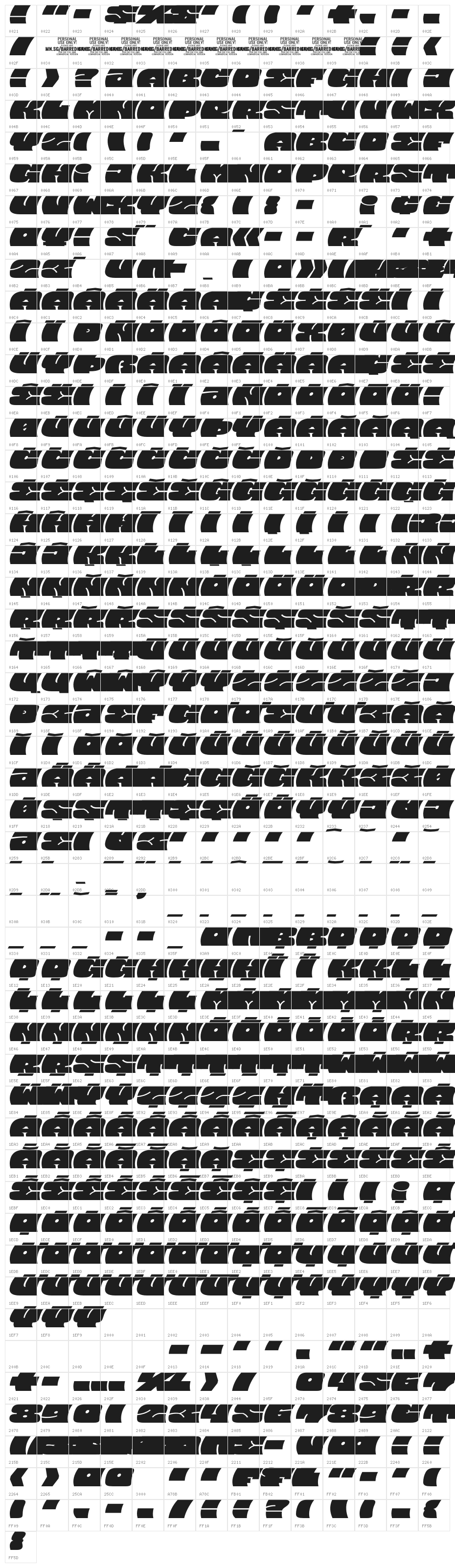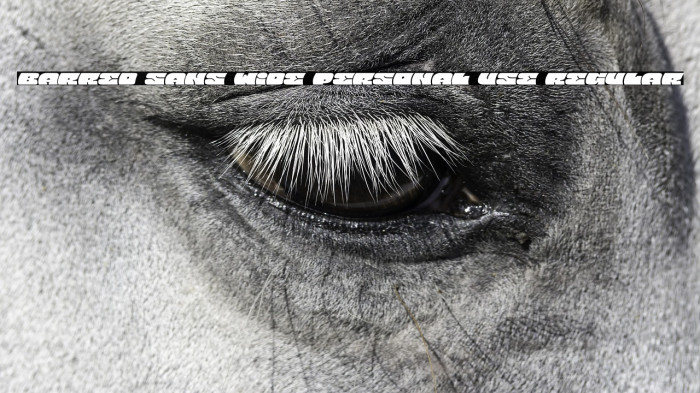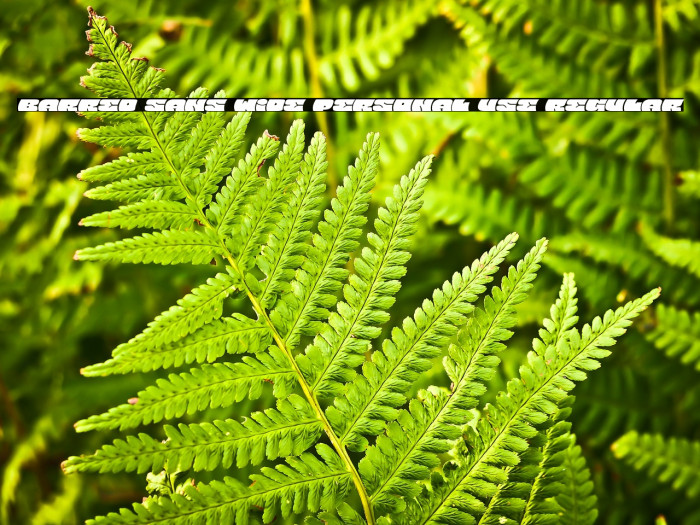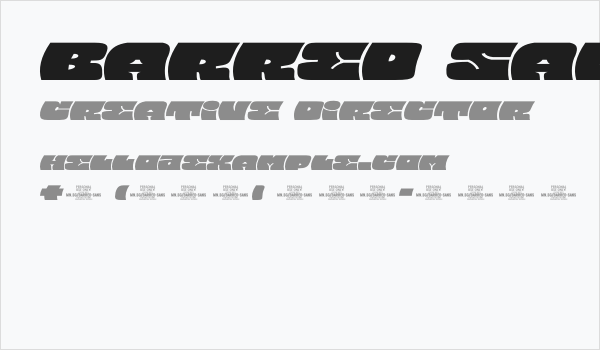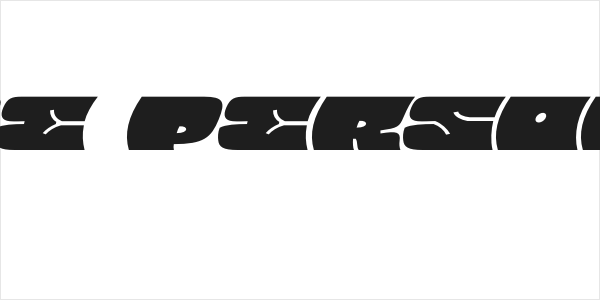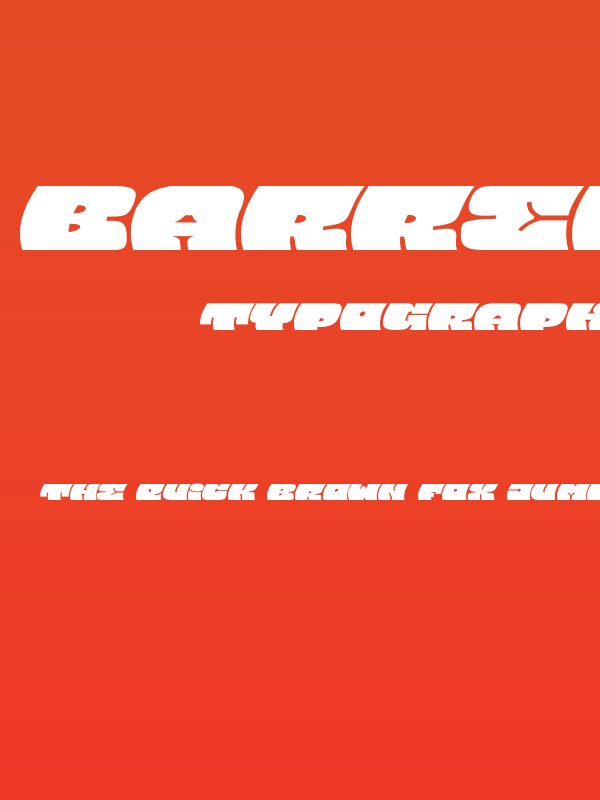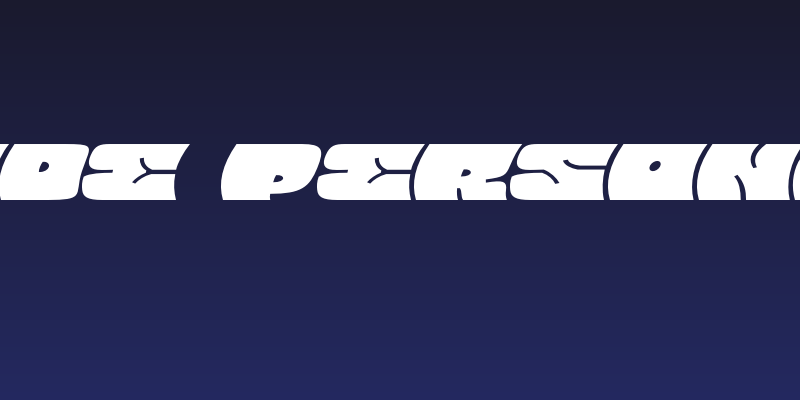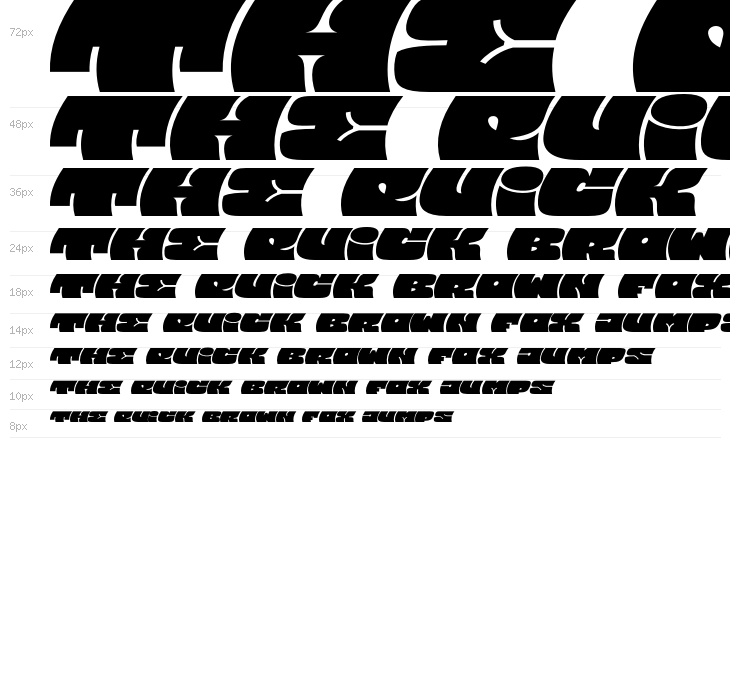
Barred Sans Wide PERSONAL USE Regular Font
Barred Sans Wide PERSONAL USE Regular Description
This font features a bold, wide design with a distinctly modern and futuristic aesthetic. The characters are heavily stylized with a blocky, geometric appearance, creating a strong visual impact. The uppercase and lowercase letters maintain a consistent width, contributing to a cohesive look. The font's unique style is further emphasized by its high contrast in stroke thickness, with thick, solid lines that dominate the design. The spacing between characters is tight, enhancing the compact and robust feel of the text. This font is ideal for projects that require a bold statement, such as branding, headlines, and posters.